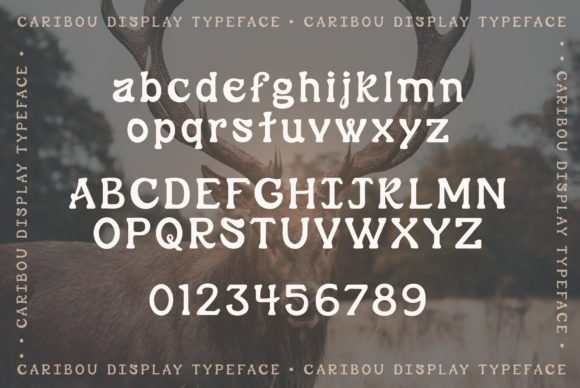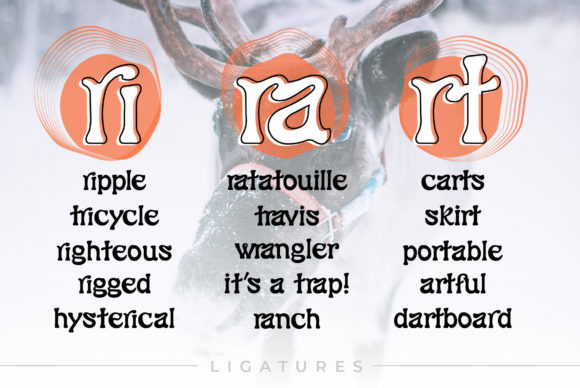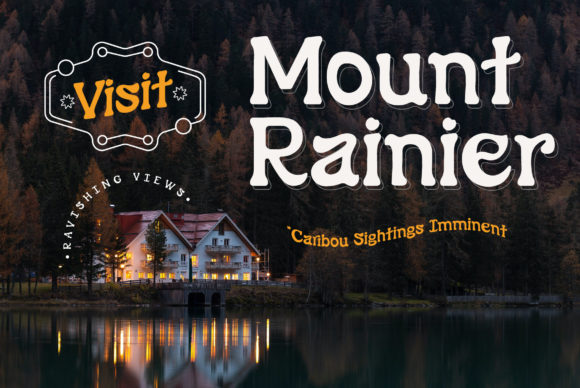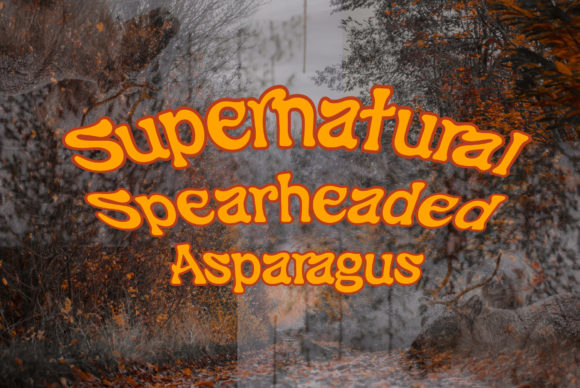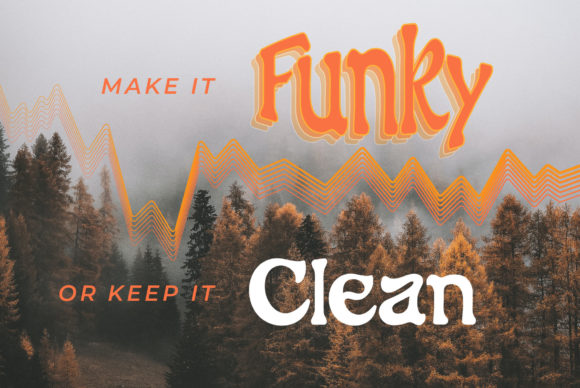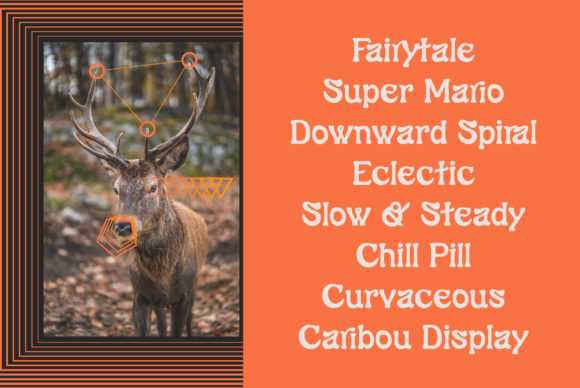
Introducing Caribou Font: The Cool, Casual, and Quirky Display Font You Need
In the world of typography, fonts play a crucial role in conveying the tone and personality of a design. Whether you’re working on a branding project, a craft, or a digital product, the right font can make all the difference. If you’re on the hunt for a font that exudes a cool, casual, and quirky vibe, look no further than Caribou Font. In this article, we’ll dive into the features and benefits of Caribou Font, and explore how it can elevate your designs to the next level.
What is Caribou Font?
Caribou Font is a display font that boasts a unique and eye-catching design. Its cool, casual, and quirky look makes it perfect for a wide range of projects, from branding and advertising to crafting and digital products. With its distinctive character set, Caribou Font is sure to add a touch of personality to any design.
Key Features of Caribou Font
So, what makes Caribou Font so special? Here are some of its key features:
- Unique and Quirky Design: Caribou Font has a one-of-a-kind design that’s sure to grab attention. Its quirky look and feel make it perfect for projects that require a bit of personality.
- Cool and Casual Vibe: Caribou Font has a laid-back, casual vibe that’s perfect for designs that need to feel relaxed and approachable.
- Display Font: Caribou Font is a display font, making it perfect for headlines, titles, and other large-format text.
- Versatile: Despite its quirky design, Caribou Font is surprisingly versatile. It can be used for a wide range of projects, from branding and advertising to crafting and digital products.
Benefits of Using Caribou Font
So, why should you choose Caribou Font for your next project? Here are some of the benefits of using this amazing font:
- Adds Personality to Your Design: Caribou Font is the perfect way to add a bit of personality to your design. Its quirky design and cool vibe make it sure to grab attention and leave a lasting impression.
- Elevates Your Brand: If you’re working on a branding project, Caribou Font can help elevate your brand to the next level. Its unique design and casual vibe make it perfect for creating a memorable brand identity.
- Increases Versatility: Caribou Font is surprisingly versatile, making it perfect for a wide range of projects. Whether you’re working on a digital product, a craft, or a branding project, Caribou Font is a great choice.
- Easy to Read: Despite its quirky design, Caribou Font is easy to read, even at smaller sizes. This makes it perfect for use in a variety of contexts, from headlines to body copy.
How to Use Caribou Font
So, how can you use Caribou Font in your next project? Here are a few ideas to get you started:
- Branding and Advertising: Use Caribou Font to create eye-catching headlines and titles for your branding and advertising projects.
- Crafting and DIY Projects: Add a touch of personality to your crafting and DIY projects with Caribou Font. It’s perfect for creating custom signs, labels, and other decorative elements.
- Digital Products: Use Caribou Font to add a bit of personality to your digital products, such as ebooks, courses, and software.
In conclusion, Caribou Font is a cool, casual, and quirky display font that’s perfect for a wide range of projects. Its unique design and versatile nature make it a great addition to any font library. Whether you’re a designer, crafter, or digital product creator, Caribou Font is sure to become a go-to font in your collection. So why wait? Download Caribou Font today and start elevating your designs to the next level!